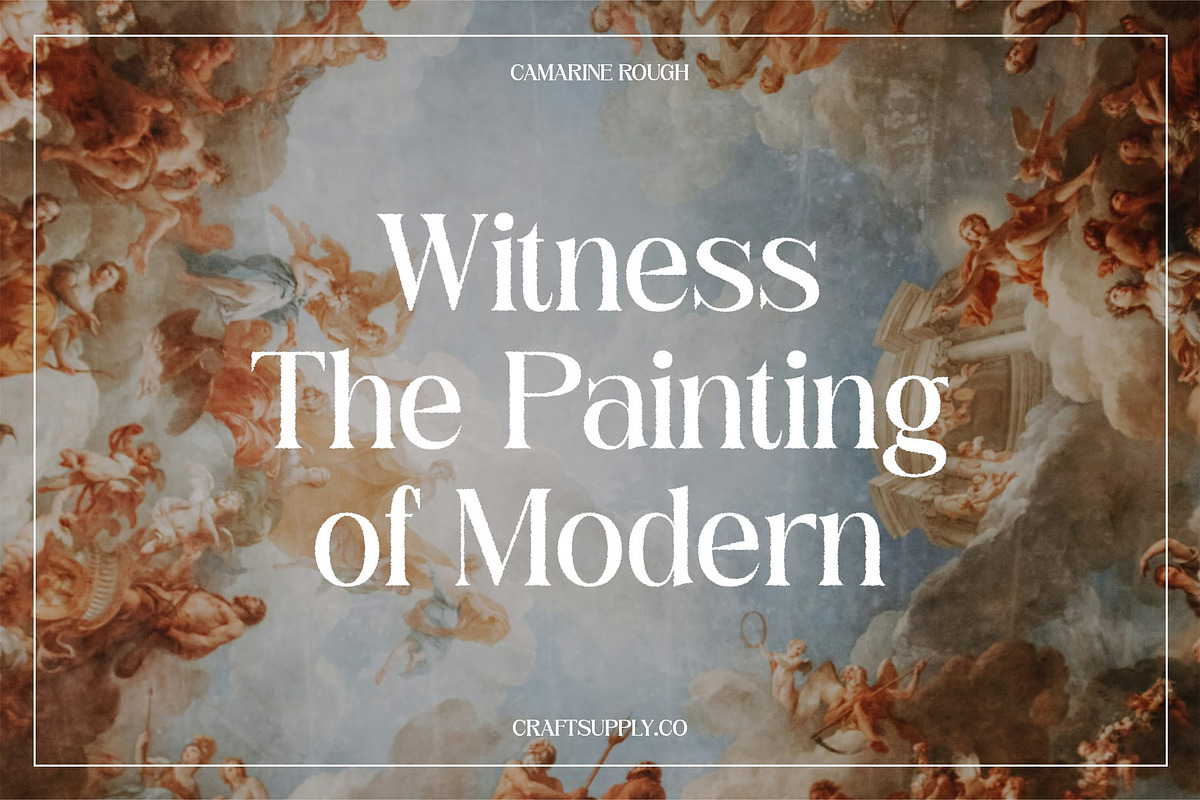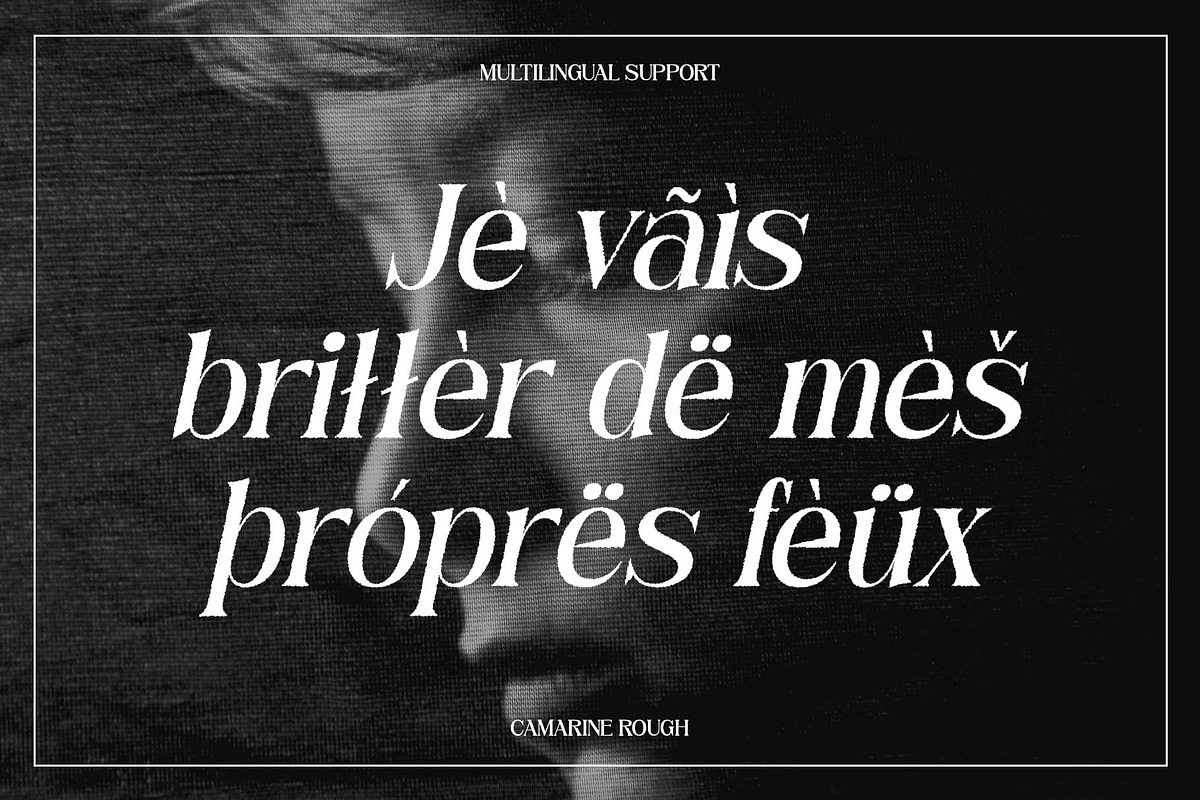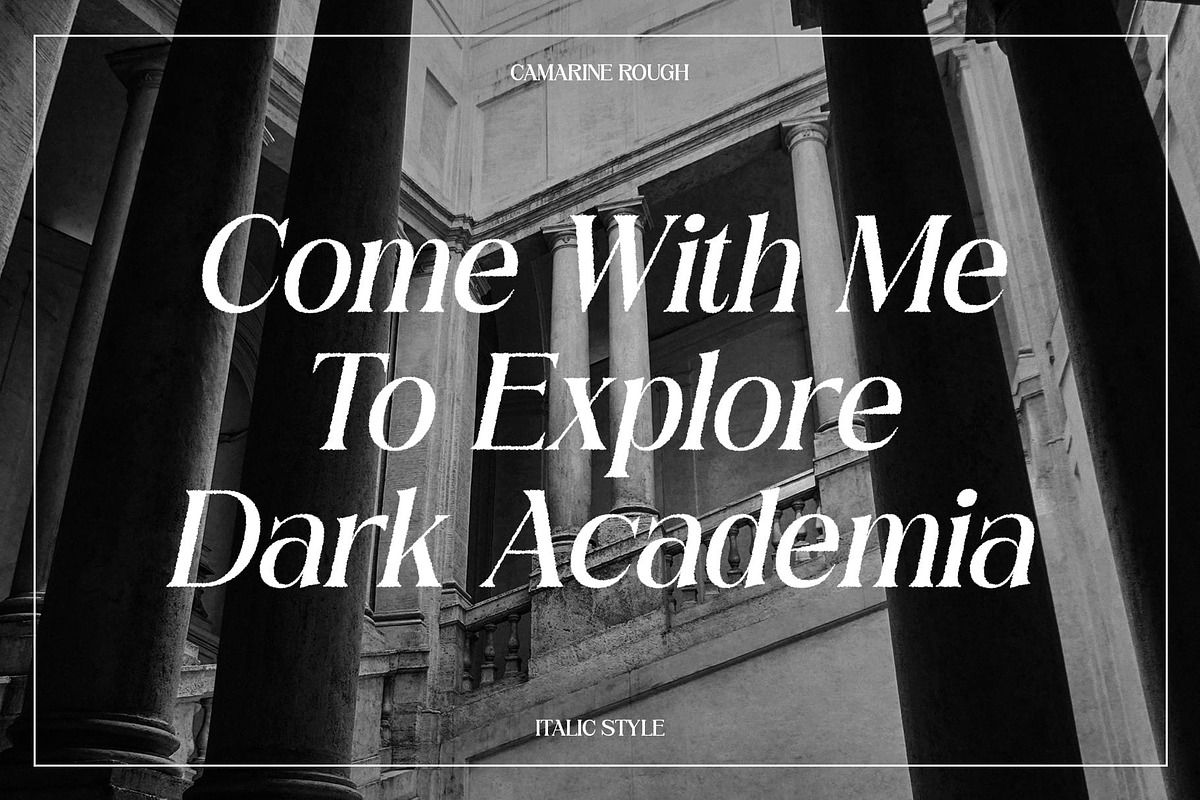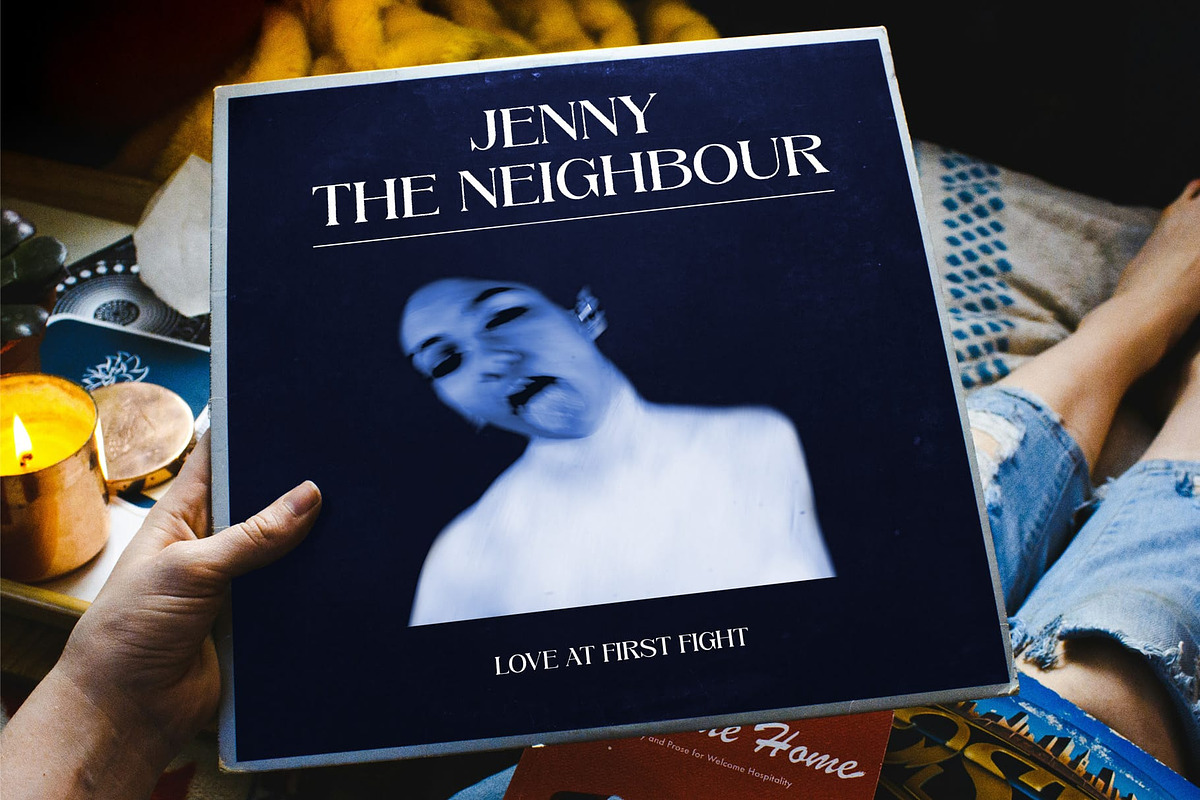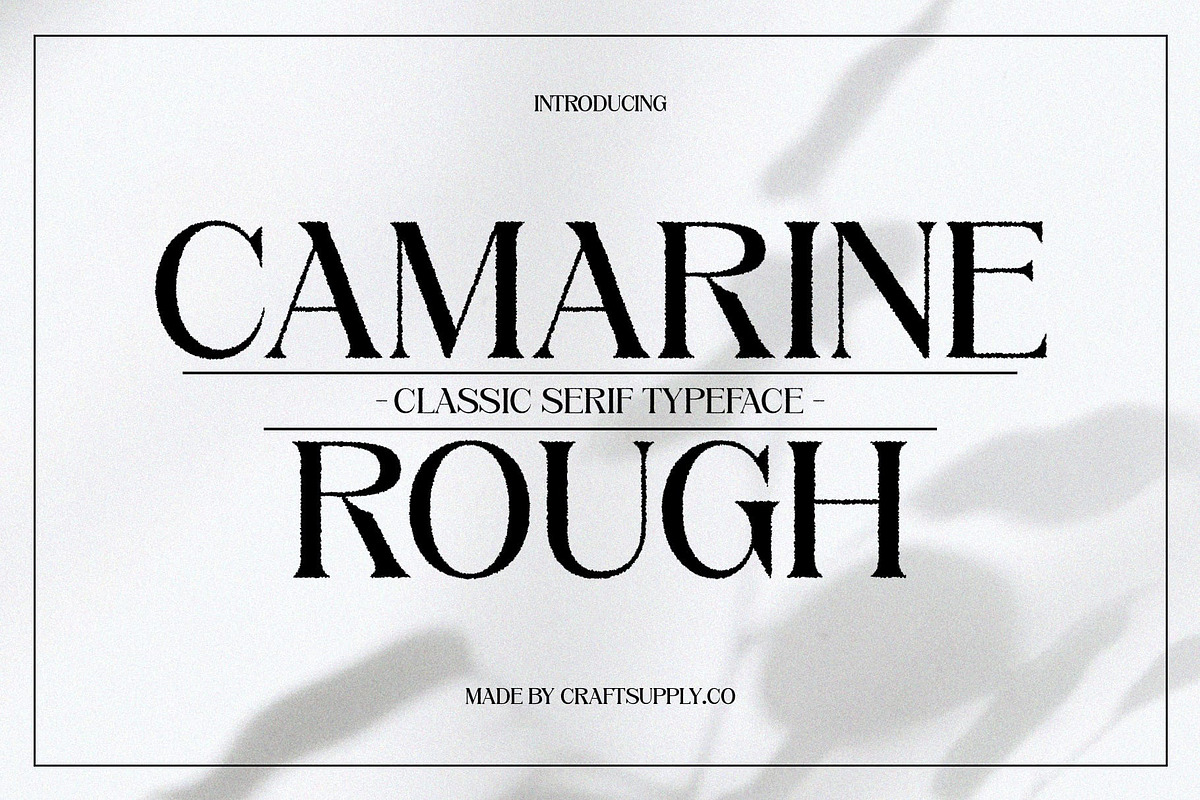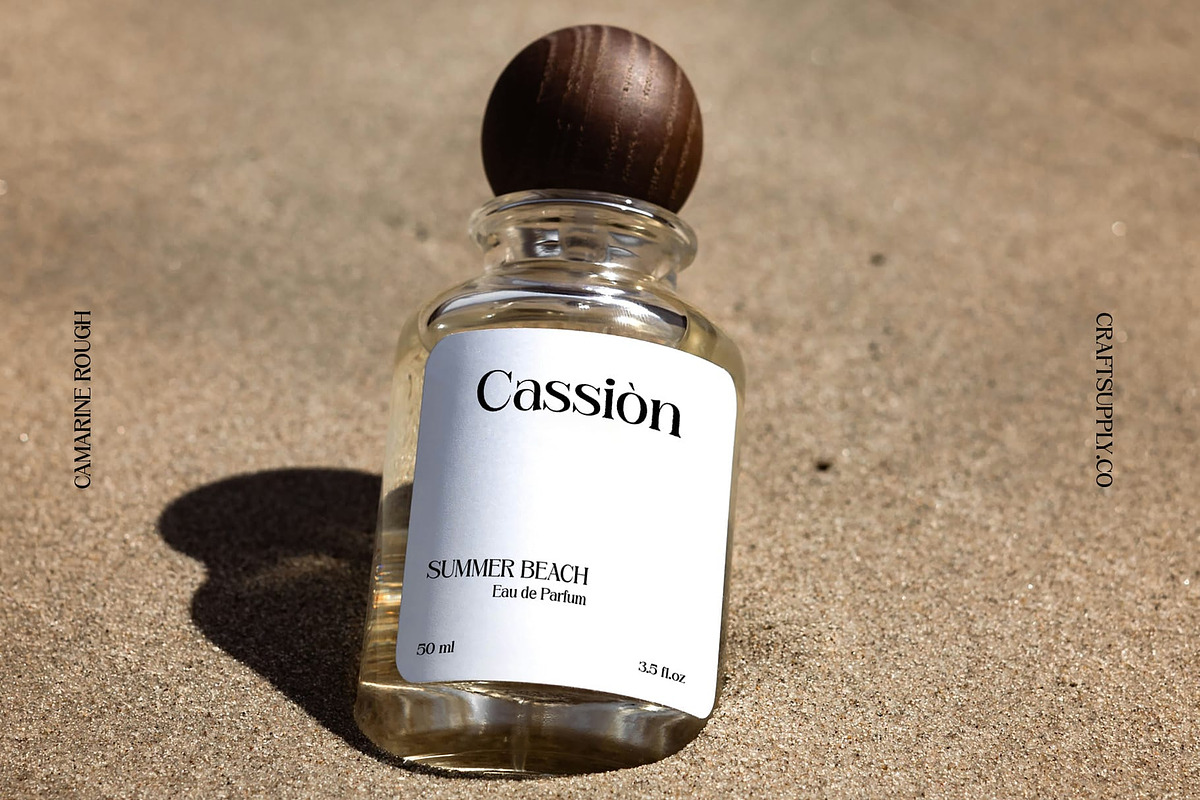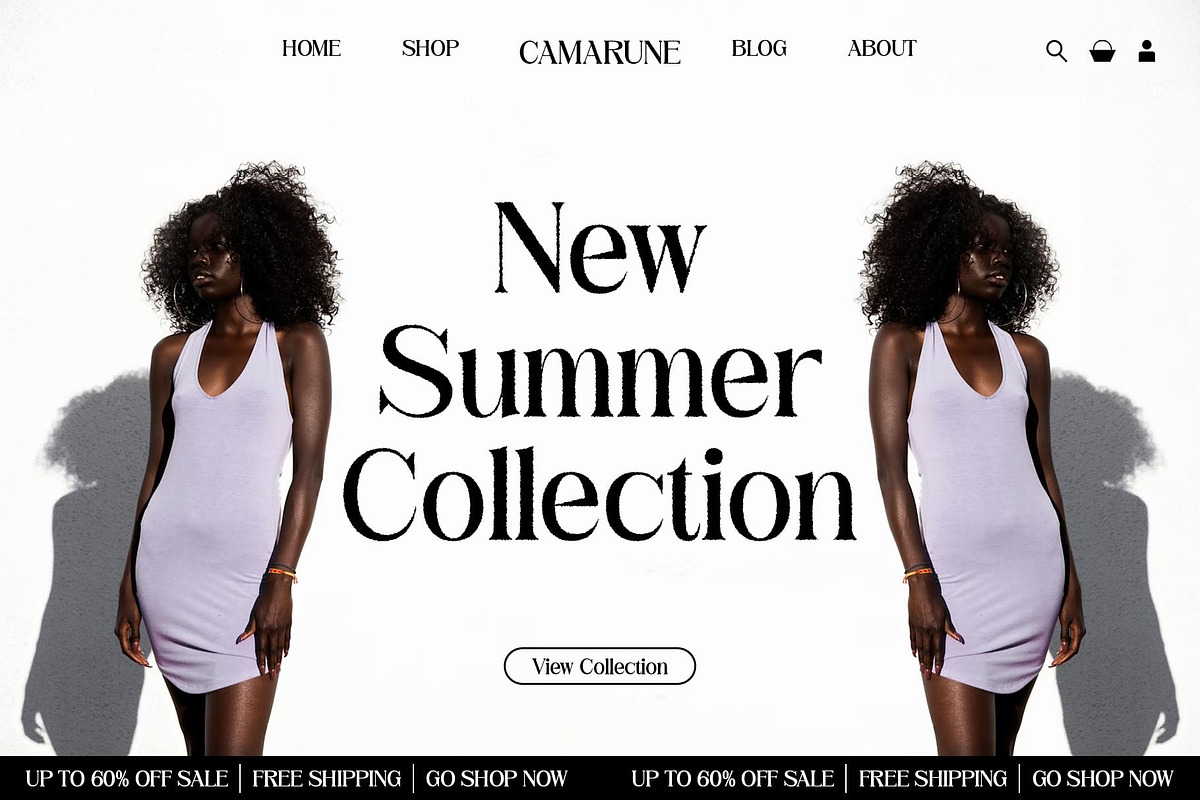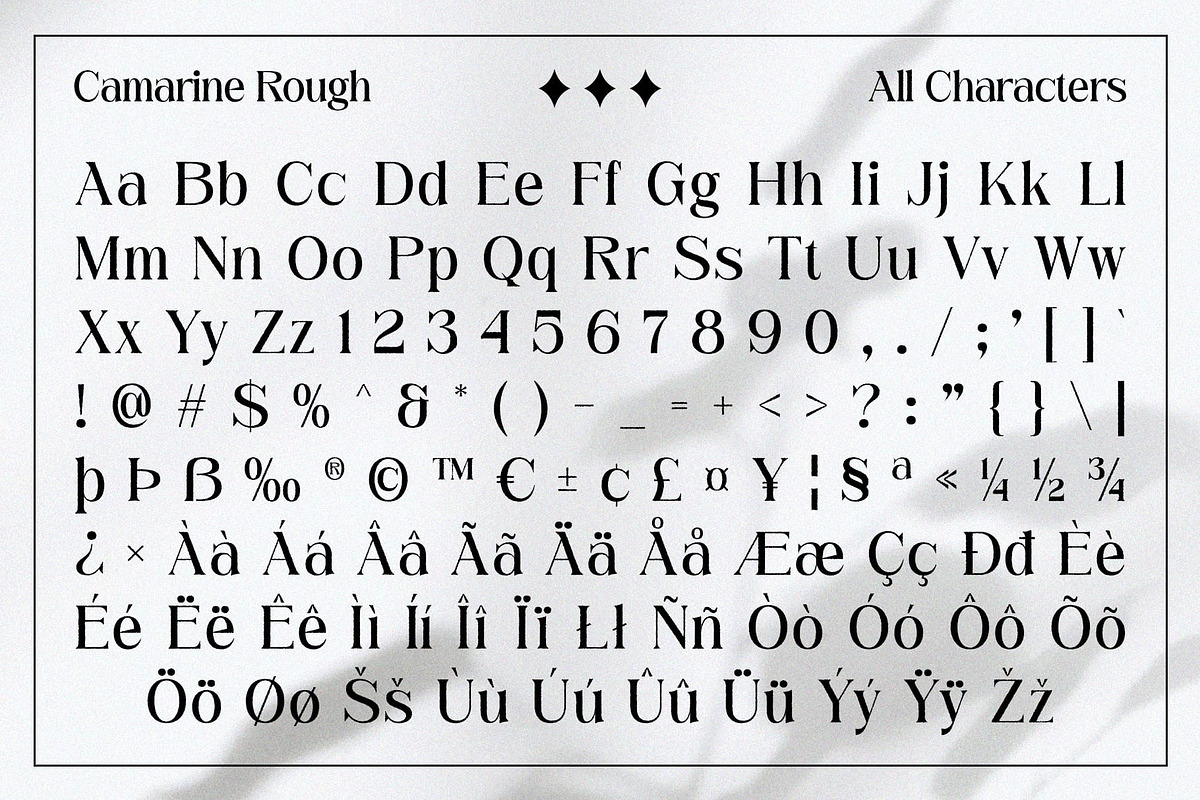
Camarine Rough
Camarine Rough: Classic Elegance with a Modern Edge
Modern Serif Font with a Rough Effect
Camarine Rough is a modern serif font that blends classic shapes with a rough contemporary touch. Its design features elegant and classic serif elements, but with the addition of a rough texture that provides a more bold and layered look.
Traditional Aesthetics, Modern Twist
Camarine Rough combines traditional aesthetics with a rough contemporary touch, making it ideal for designs that want to display a combination of classic luxury and modern boldness. The rough effect adds depth and character to the font, giving it a unique and eye-catching appearance.
Suitable for Various Designs
Whether you’re creating branding materials, editorial layouts, or packaging designs, this rough font is sure to make a statement. Its blend of classic elegance and modern boldness makes it a versatile choice for a wide range of design projects.
Elevate Your Designs with Camarine Rough
Elevate your designs with Camarine Rough, where classic shapes meet a modern rough effect. Its unique combination of traditional aesthetics and contemporary design makes it a standout choice for designs that demand sophistication and style.